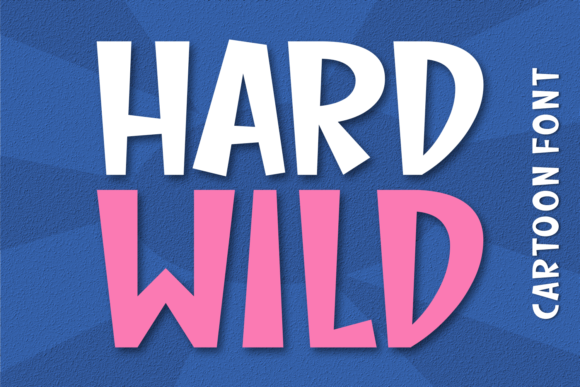
Hard Wild Font: A Friendly Display Choice for Creative Projects
When you are designing something that needs to grab attention without shouting, the choice of typography plays a massive role in setting the right tone. Hard Wild is a display font that brings a specific kind of energy to the table—one that is childish yet polished, playful but readable. It is not just another decorative typeface; it is a tool designed to convey impeccable friendliness while maintaining a bold, structured presence.
Whether you are a graphic designer crafting a brand identity, a teacher making classroom materials, or a hobbyist creating handmade greeting cards, understanding how to leverage a font like Hard Wild can elevate your work. This article explores why this font has become a go-to choice for many creators and how you might fit into its user base.
What Makes Hard Wild Unique?
At its core, Hard Wild is a display font. Unlike body text fonts that prioritize linear reading speed, display fonts are meant to be seen. They carry personality. Hard Wild achieves this through a design that mimics the irregularity of hand-drawn lettering but with the consistency of digital precision. The result is a typeface that feels approachable and warm.
The "childish" aspect mentioned in its description does not mean immature. Instead, it refers to a sense of wonder, simplicity, and unpretentious joy. The letters have rounded edges and a slight bounce to them, which softens their visual impact. This makes them perfect for contexts where you want to appear accessible rather than authoritative. If you look closely at the character set, you will notice that every glyph is crafted to maintain a cohesive rhythm, ensuring that even short phrases feel balanced and harmonious.
For designers, this balance is crucial. Too much whimsy can make a design look amateurish, but too much rigidity can make it cold. Hard Wild sits comfortably in the middle, offering a professional finish with a human touch.
Why Different Audiences Care About Typography
Not everyone thinks about fonts in the same way. For a software engineer, a font is just data until it renders on screen. But for a marketer, an educator, or a small business owner, typography is a silent salesperson. Here is how different groups might evaluate the value of Hard Wild based on their specific priorities.
Beginners and Hobbyists
If you are just starting out in design or craft, complexity can be intimidating. You do not want to spend hours tweaking kerning pairs or worrying about ligatures. Hard Wild appeals to beginners because it is forgiving. Its inherent friendliness means that even if your layout is slightly off-center, the font itself adds a layer of charm that covers minor mistakes. It is easy to read, easy to install, and easy to pair with simpler sans-serif fonts for contrast.
- Ease of Use: No complex OpenType features required to get started.
- Creativity Boost: Instantly adds personality to scrapbooks, party invitations, or DIY labels.
- Low Learning Curve: Works well in basic design software like Canva or Microsoft Word.
Professional Designers and Creators
Experienced users look for versatility and quality. They need fonts that can handle various weights and styles without losing integrity. For a professional, Hard Wild serves as a specialized accent font. It is rarely used for long paragraphs but shines in headlines, logos, and poster art. The key here is flexibility. A skilled designer knows when to let a friendly font breathe by pairing it with clean, minimal background elements.
Professionals also care about licensing and commercial value. If you are creating assets for clients, you need assurance that the font allows for commercial use and provides consistent rendering across different platforms. Hard Wild’s clear structure helps ensure that your designs look good whether they are printed on paper or displayed on a mobile screen.
Educators and Content Creators
Teachers and bloggers often struggle to keep their material engaging without sacrificing readability. Hard Wild offers a solution for headers and titles. Imagine a worksheet for young students or a blog post about parenting tips. Using Hard Wild for the main headings creates an immediate sense of warmth and encouragement. It signals to the reader that the content is safe, helpful, and non-judgmental.
- Engagement: Captures the attention of younger audiences or those seeking lighthearted content.
- Clarity: Despite its stylistic flair, the letters remain distinct and legible.
- Brand Consistency: Helps educators build a recognizable, friendly visual identity for their courses or resources.
Practical Applications Across Industries
To truly understand the potential of Hard Wild, it helps to look at real-world scenarios. How does this font translate from a digital file to a tangible product or a digital campaign?
Small Business Owners and Marketers
For a bakery, a boutique toy store, or a children’s clothing line, branding is everything. Your logo and packaging need to communicate trust and fun. Hard Wild can be used in custom logotypes or as a supporting font for promotional emails. When sending out newsletters, using this font for subject lines or call-to-action buttons can increase click-through rates by making the message feel more personal and less corporate.
By understanding where Hard Wild fits—whether in a child’s classroom, a small business logo, or a heartfelt greeting card—you can make smarter design decisions. It is not just about picking a font that looks nice; it is about choosing a voice that speaks directly to your audience. In a digital world full of noise, sometimes the most effective strategy is simply to be friendly, clear, and genuinely human.